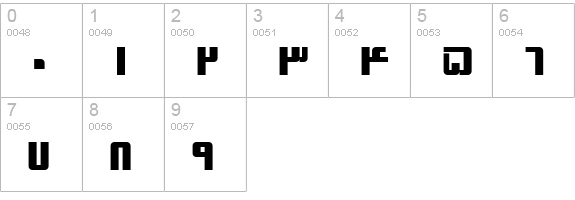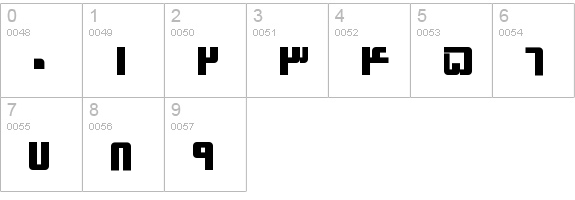
B Sina Bold is a strong, high-contrast variant in the B typeface family \xE2\x80\x94 well suited to headlines, attention-grabbing titles, and strong calls-to-action.
B Sina Bold is a striking and versatile font that exudes confidence and modernity. Its bold, thick strokes make a powerful statement, perfect for headlines, branding, and other attention-grabbing designs. With its clean lines and strong presence, B Sina Bold is sure to make your text stand out in any project. The best part? B Sina Bold is completely free to download at FontsMarket.com. This means you can add this stylish font to your collection without any cost, making it a valuable resource for any designer or creative professional looking to enhance their work with a bold and impactful typeface. Don't miss out on the opportunity to elevate your designs with B Sina Bold – download it for free today!